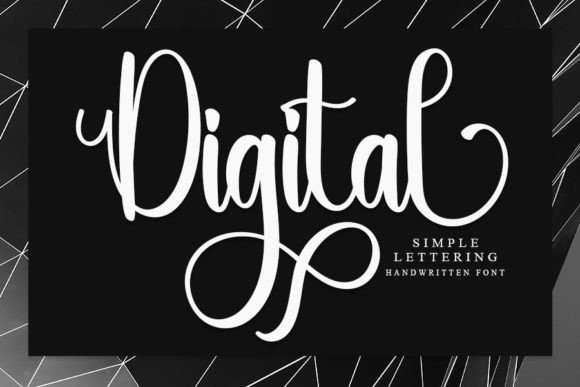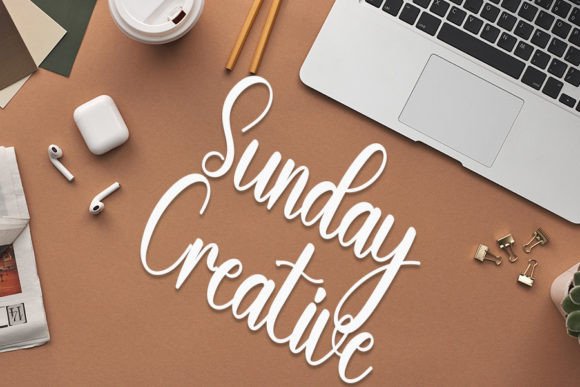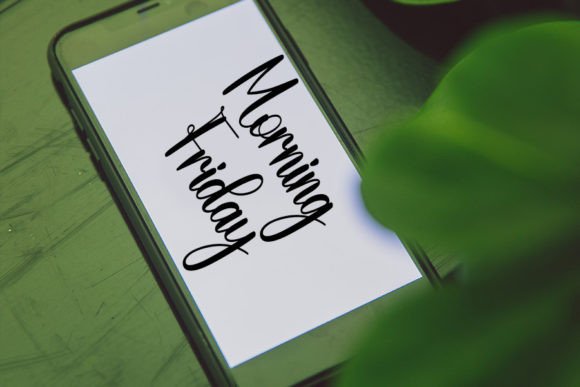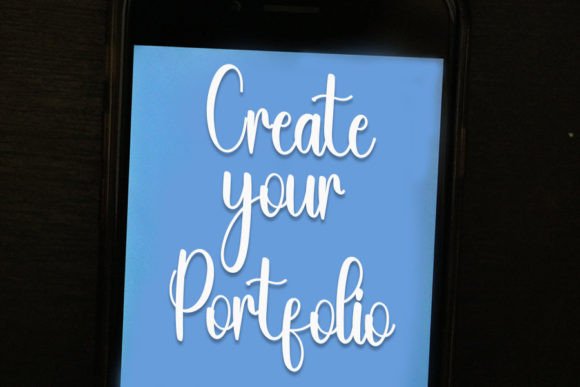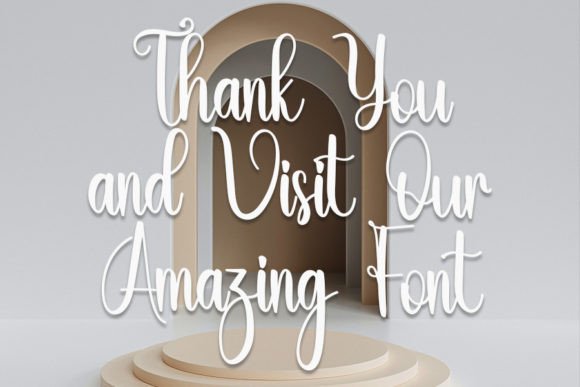
Digital Font
“Digital” is a warm and approachable handwritten font that has been thoughtfully crafted to become a cherished favorite among designers and creative enthusiasts. With its friendly and inviting style, “Digital” has the potential to breathe life into a wide array of creative projects, making it a valuable addition to your font library.
The versatility of “Digital” makes it suitable for a variety of design applications. Whether you’re working on branding, logo design, graphic design, or typography, this font offers a delightful and approachable choice.
For branding and visual identity, “Digital” can play a pivotal role in establishing a welcoming and relatable image for businesses and brands. Its friendly handwritten appearance helps create a connection with the audience, fostering engagement and trust.
In printed materials such as posters, flyers, and promotional materials, “Digital” can add a touch of character and uniqueness. Its handwritten script exudes authenticity and a human touch, making it an excellent choice for capturing attention and effectively conveying messages.
For personal projects, like greeting cards, invitations, and stationery, “Digital” can make your messages feel more personalized and heartfelt. It brings a sense of warmth and charm to your words, making it suitable for a variety of occasions and celebrations.
In essence, “Digital” is more than just a font; it’s a creative tool that brings a friendly and inviting atmosphere to your projects. Its adaptability and likable aesthetics make it a valuable asset for designers and individuals looking to infuse their work with a touch of warmth and charm, ensuring that all their creative endeavors truly come to life.